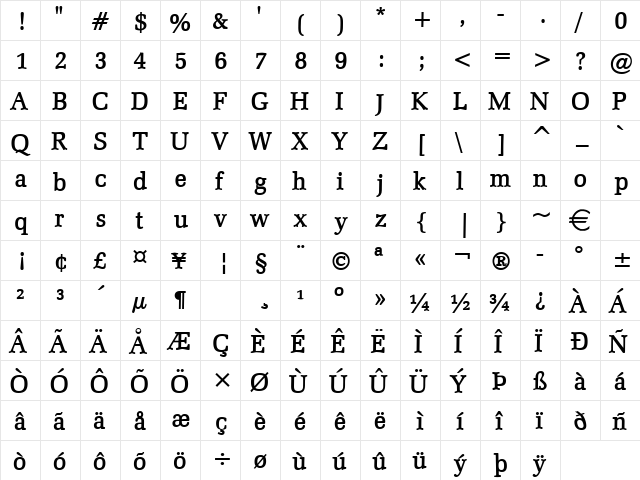
BidRoman Bold Font Preview
BidRoman Bold
Design Context for BidRoman Typeface
BidRoman offers clean, dependable letterforms without strong stylistic allegiance, making it a practical choice for designers who need flexibility. The heavy weight commands attention and anchors typographic hierarchies.
Pro Tip: Pair BidRoman with a font of contrasting weight or personality to build a more expressive typographic hierarchy.